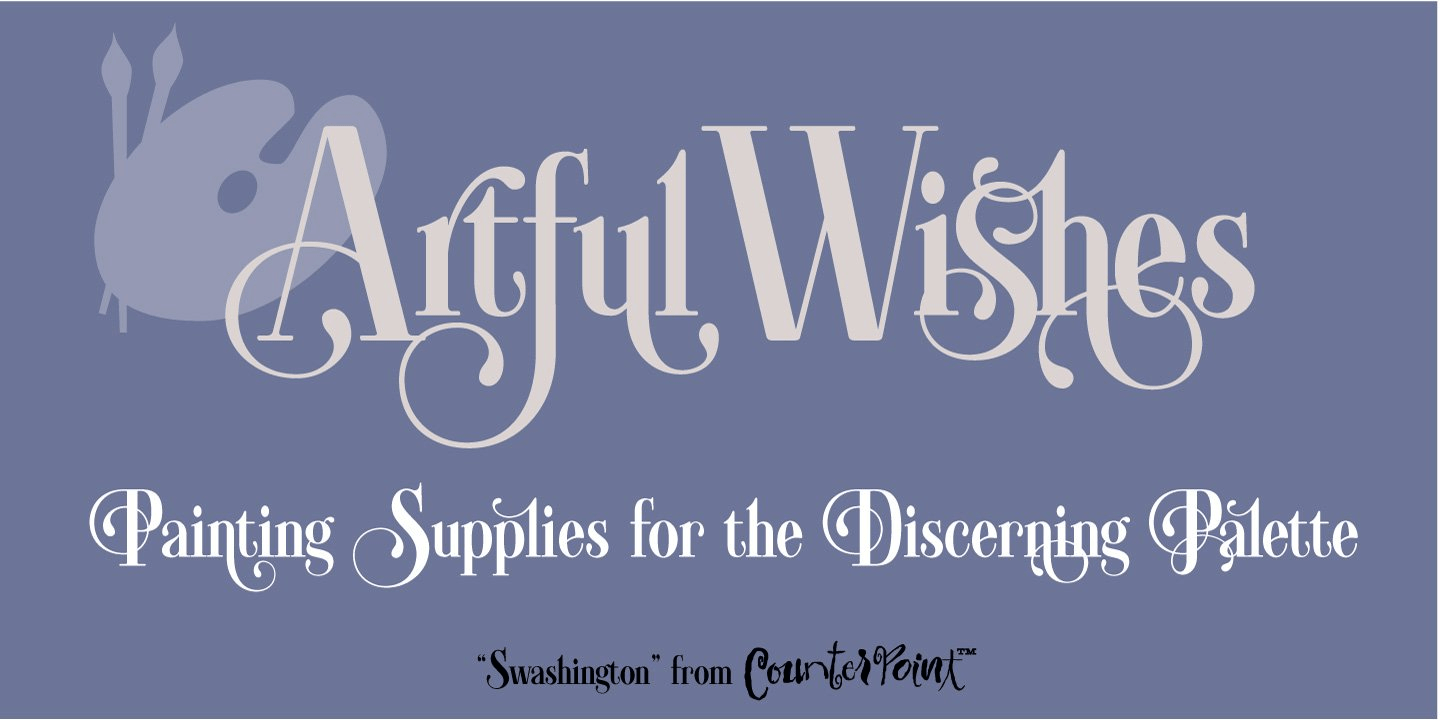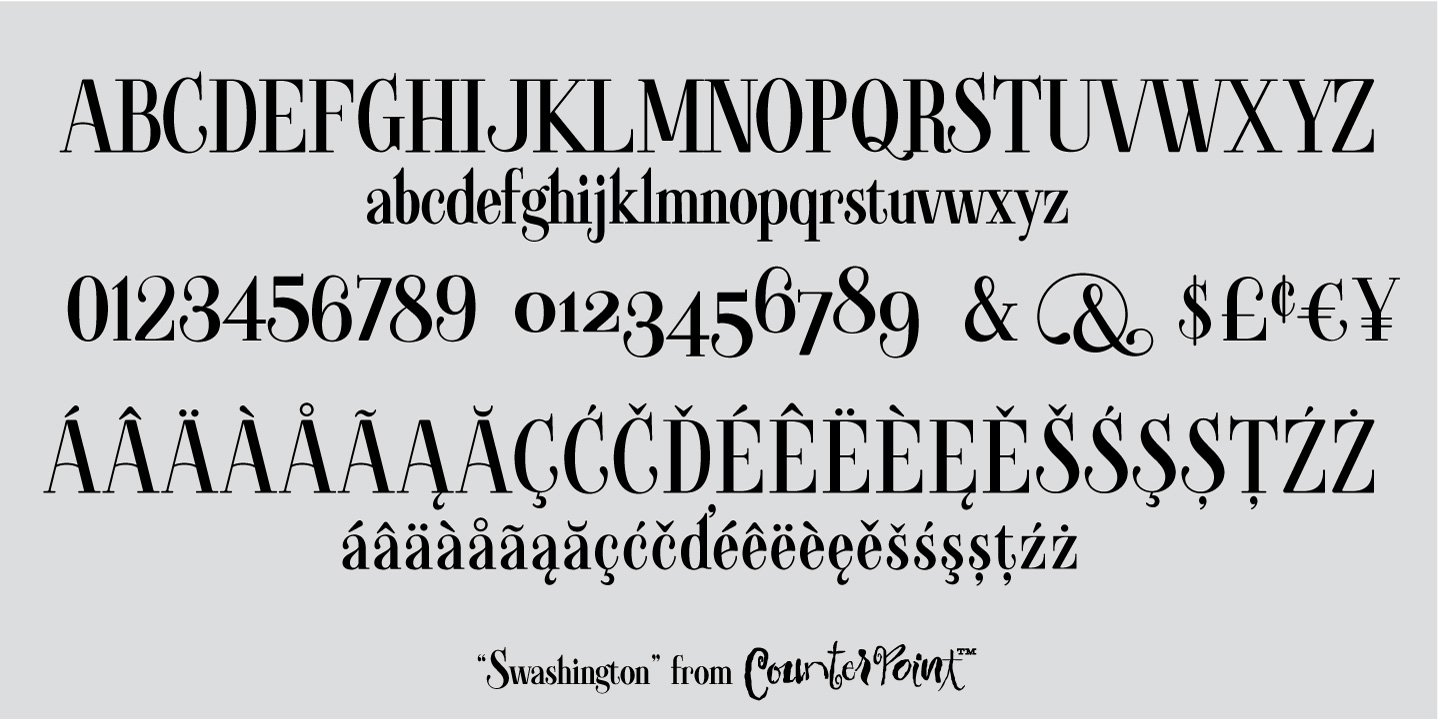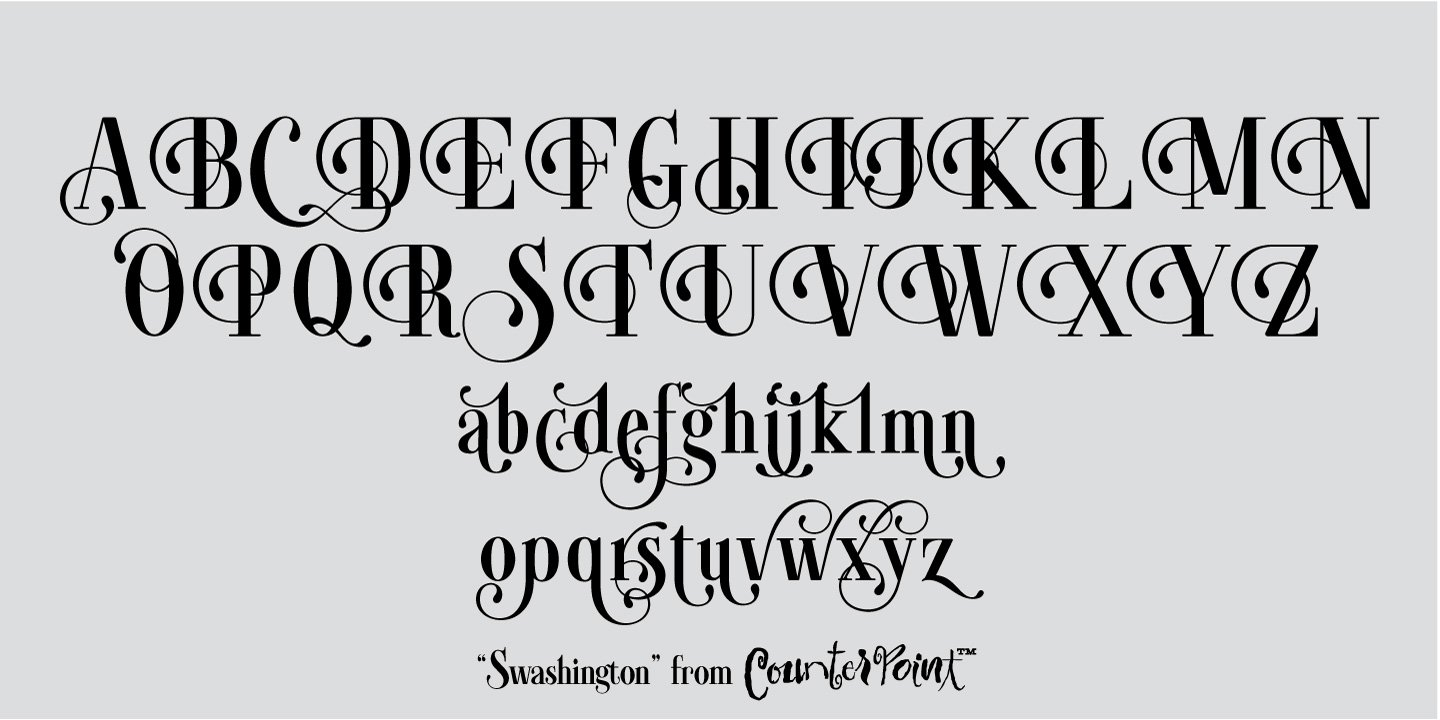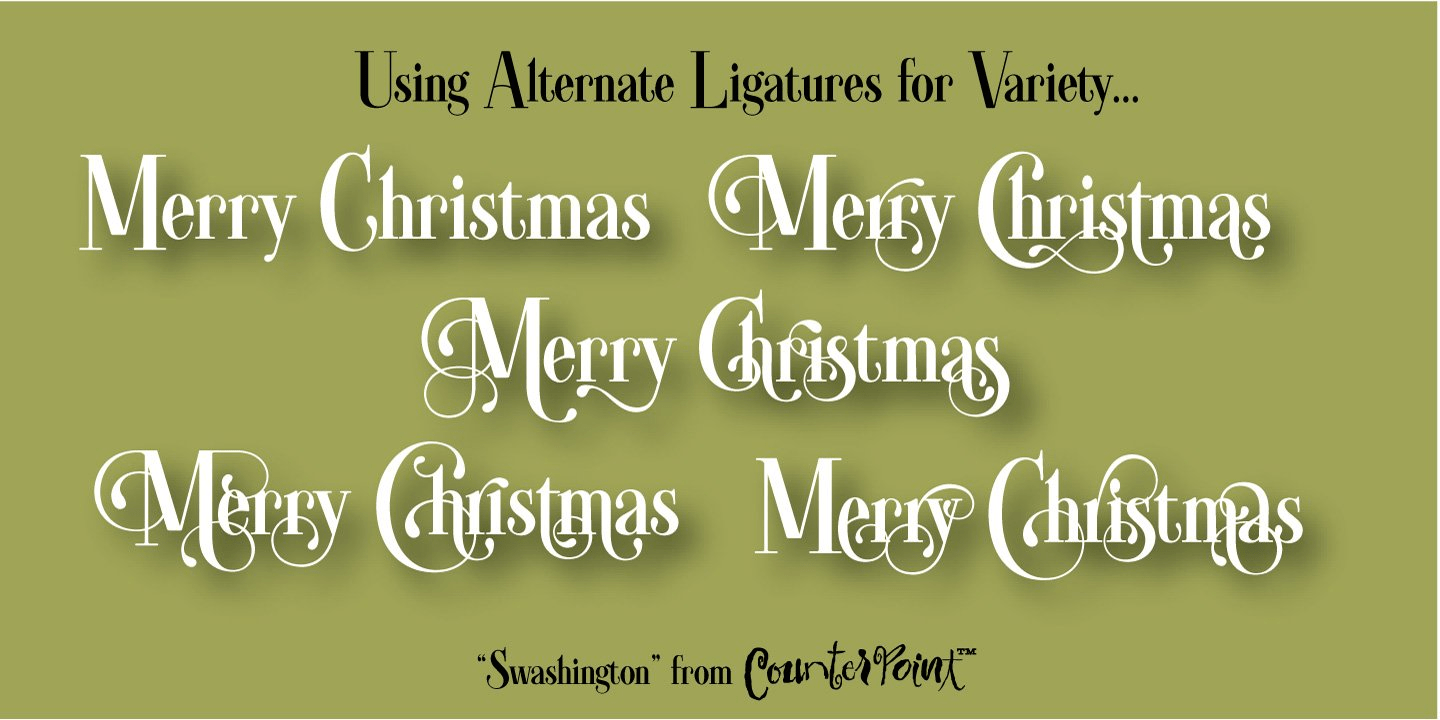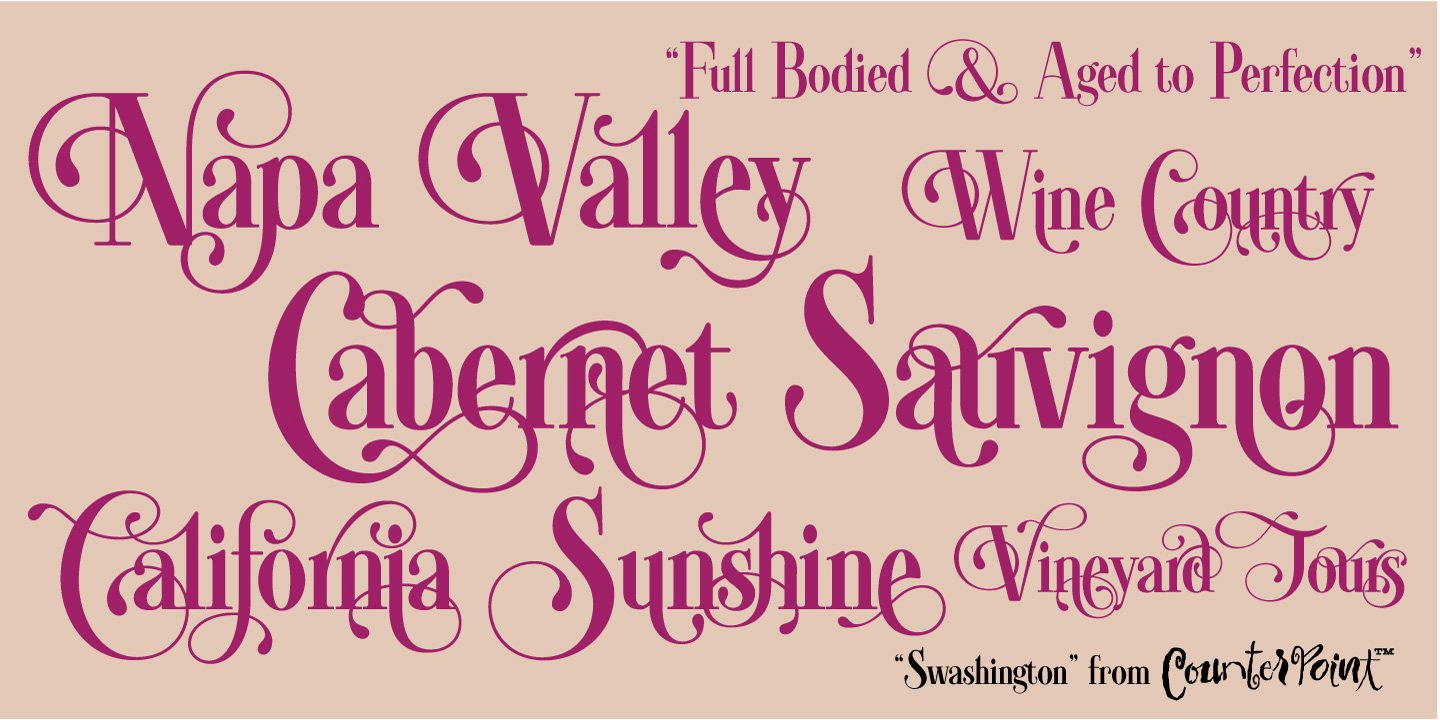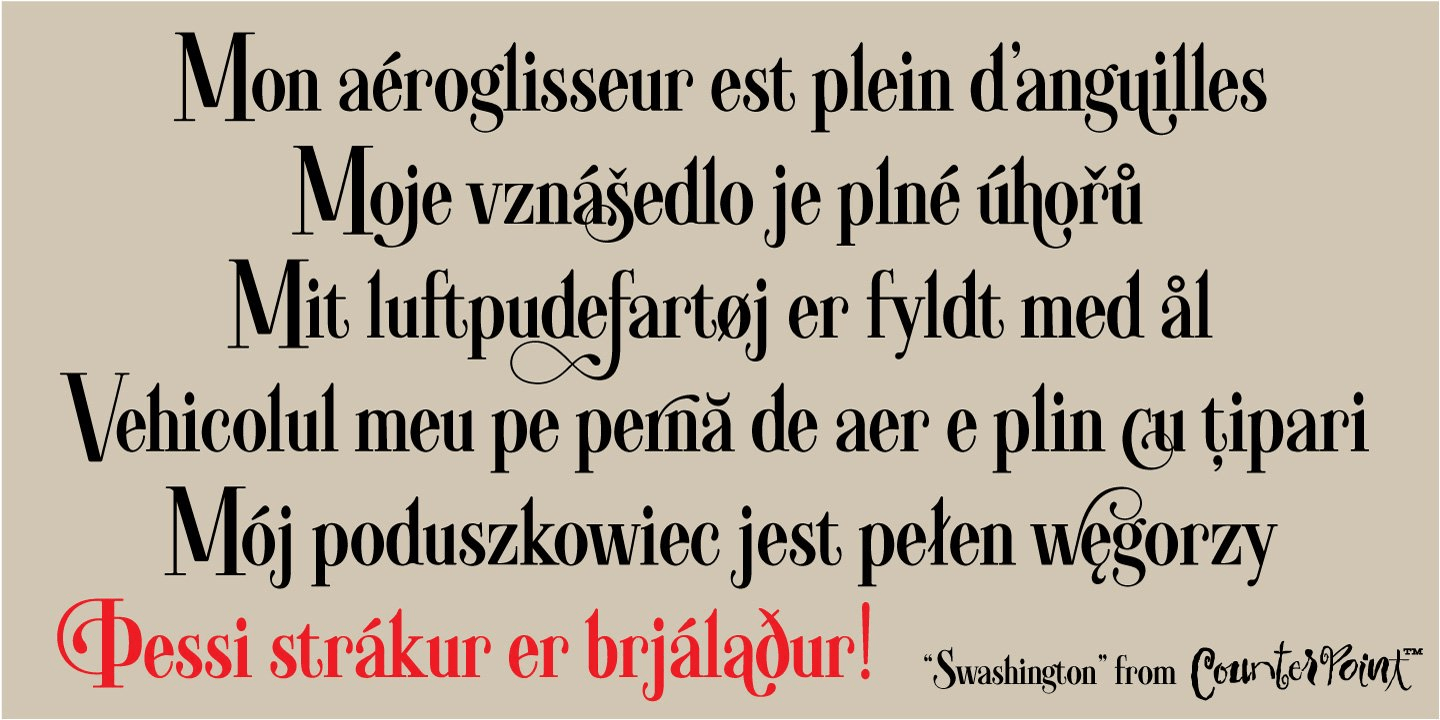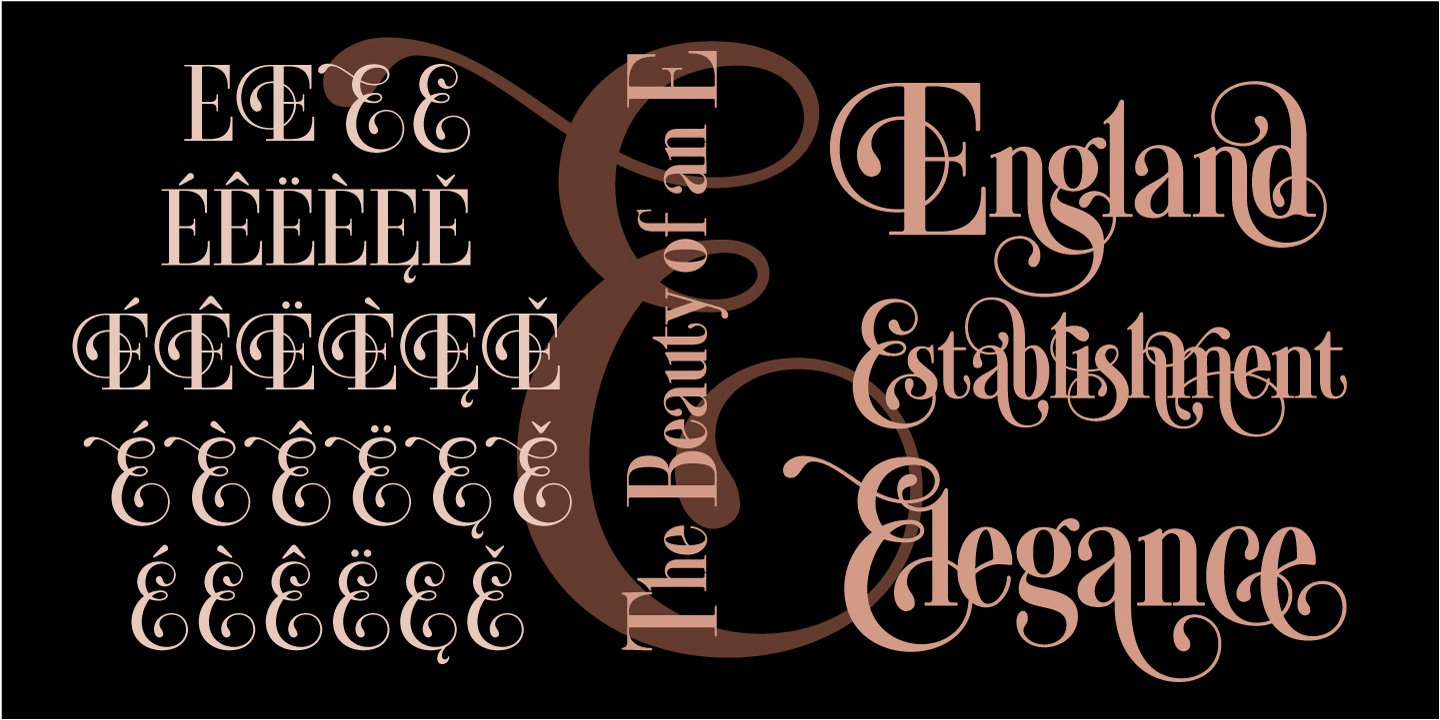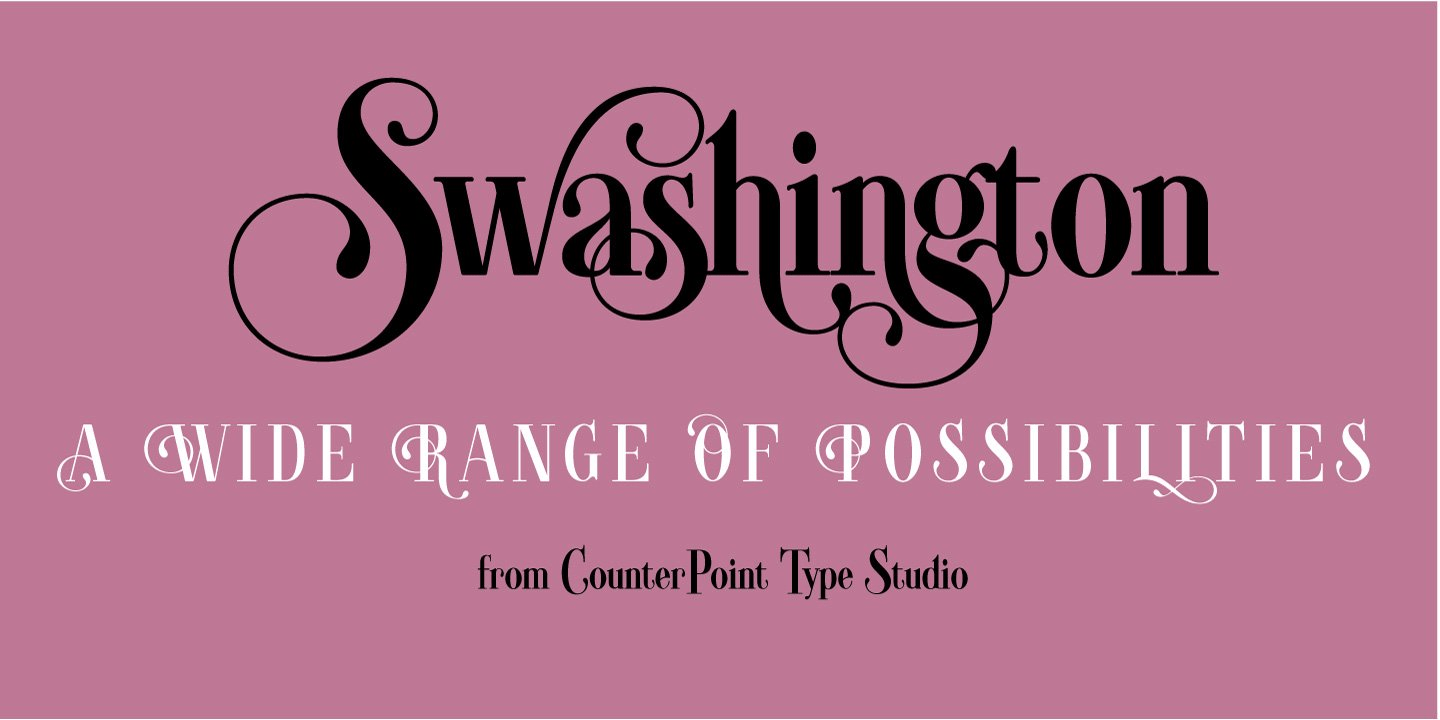
Swashington
About Swashington
Inspired by a few letters in a hand-drawn logotype, Swashington is a serif font with both an early 20th Century feel and yet is evocative of the swash fonts of the 1970s as well. The real meat of this typeface comes with using all the swash and ligature…